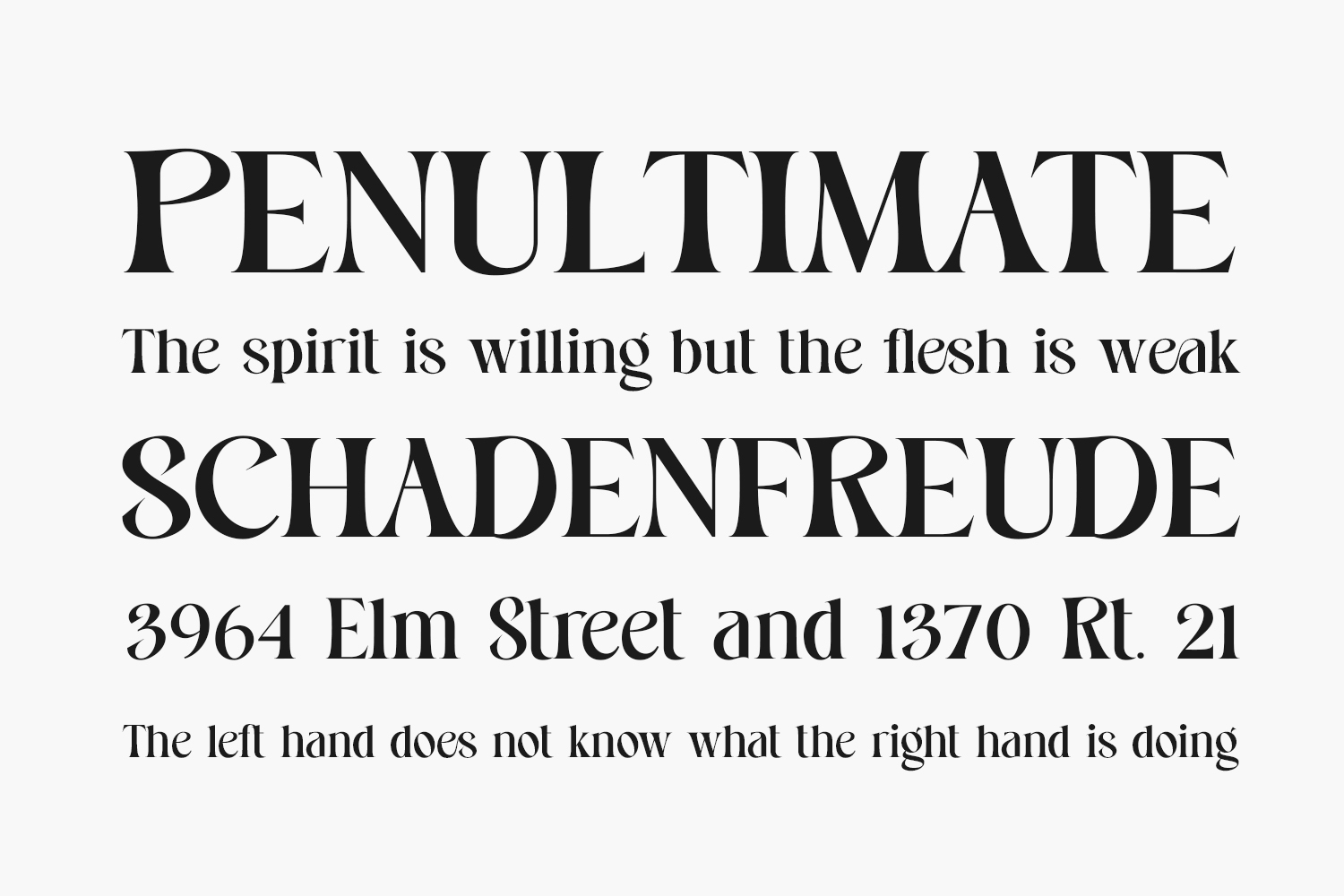
Costa Nova Free Font is a stylish and incredibly elegant serif font. It looks stunning on wedding invitations, thank you cards, quotes, greeting cards, logos, business cards, and every other design which needs a handwritten touch. Free Font was designed by ToniStudio and is free for personal use only. Please purchase the full version for commercial use.